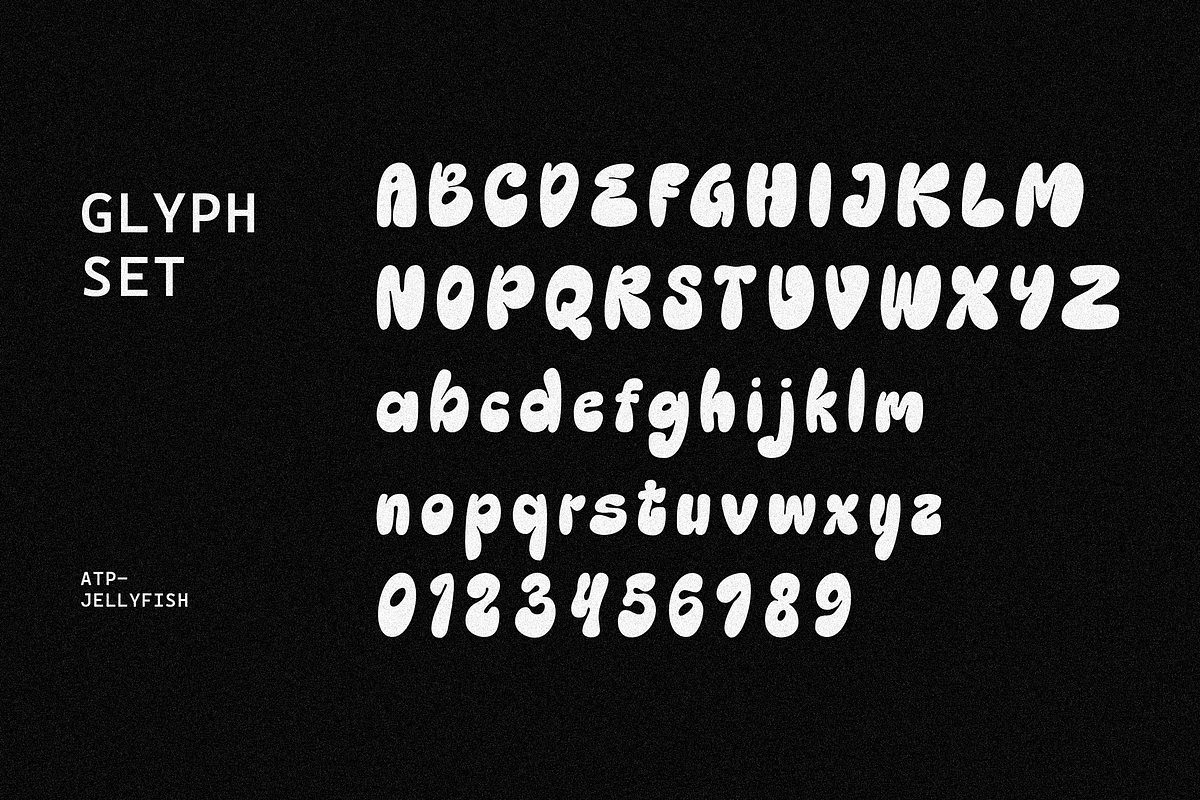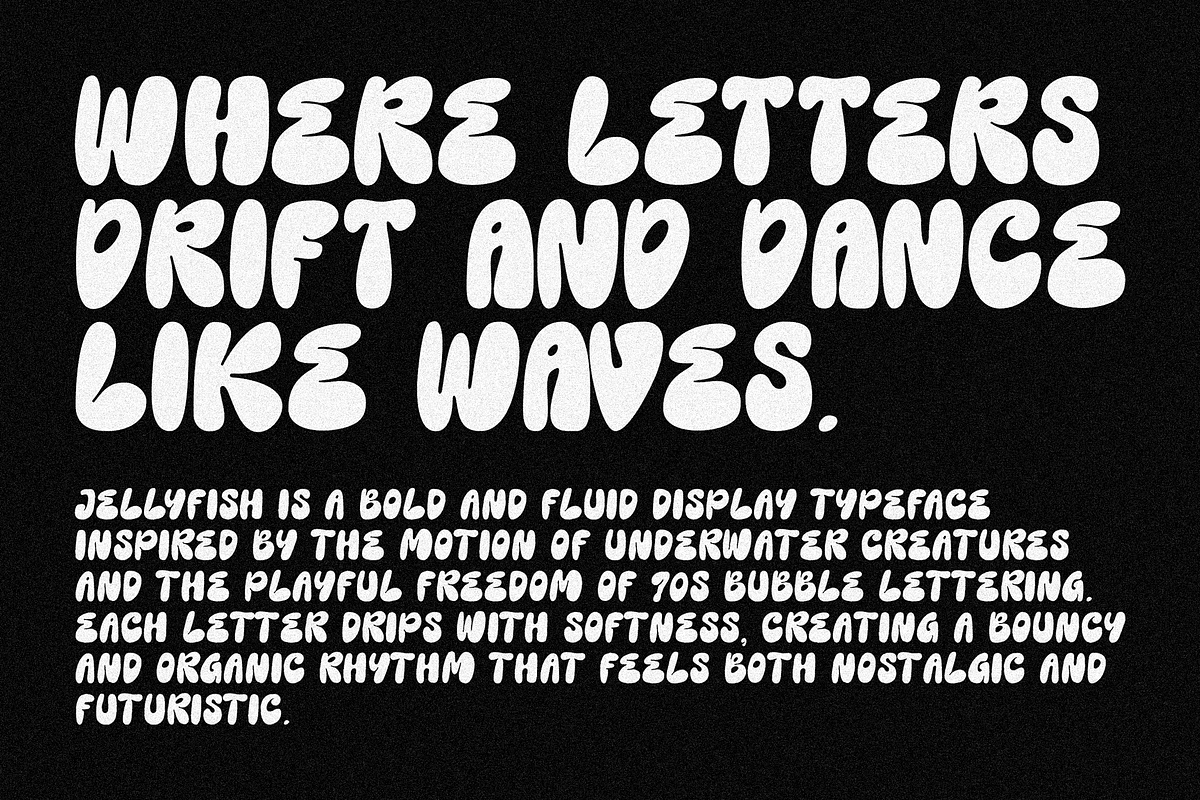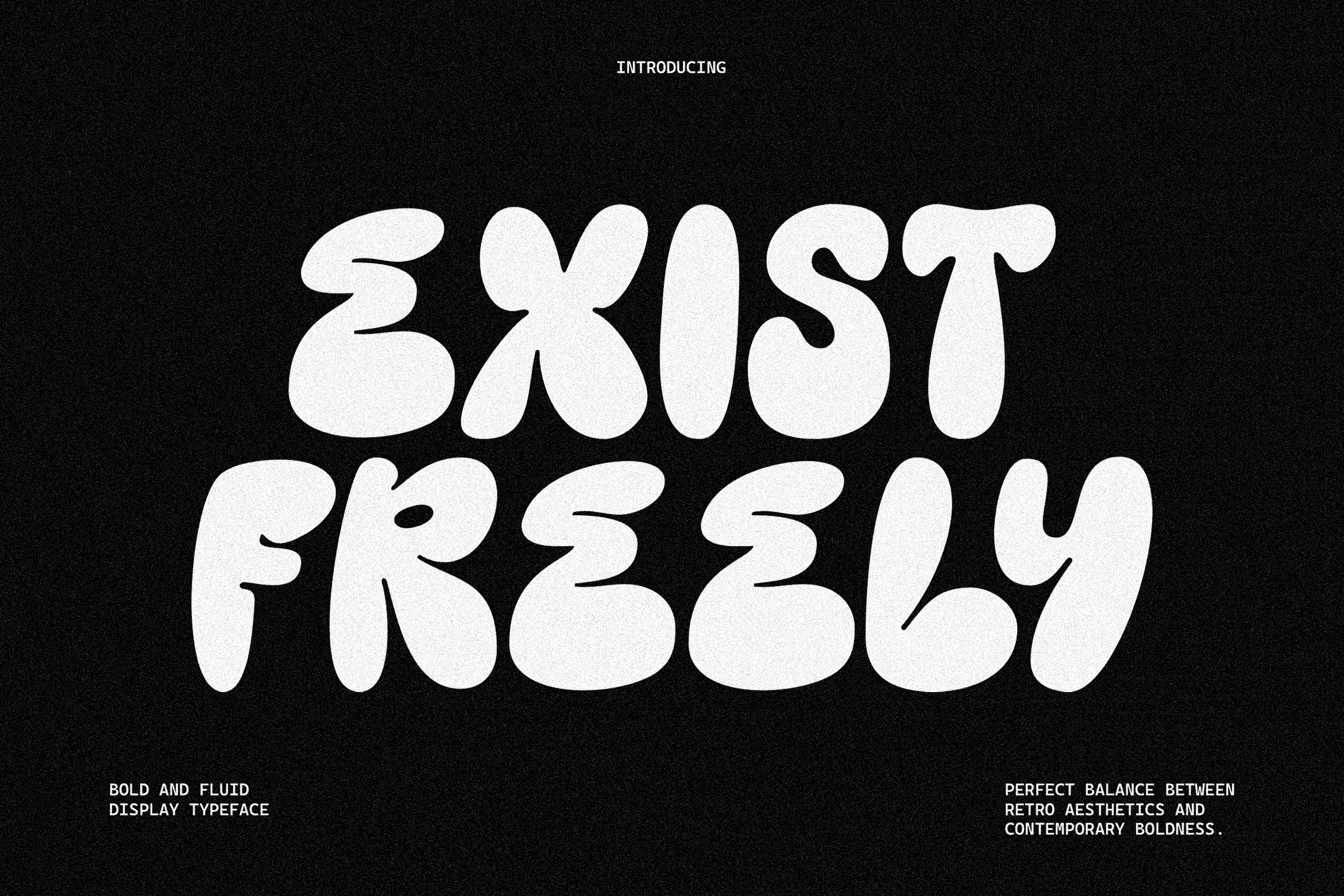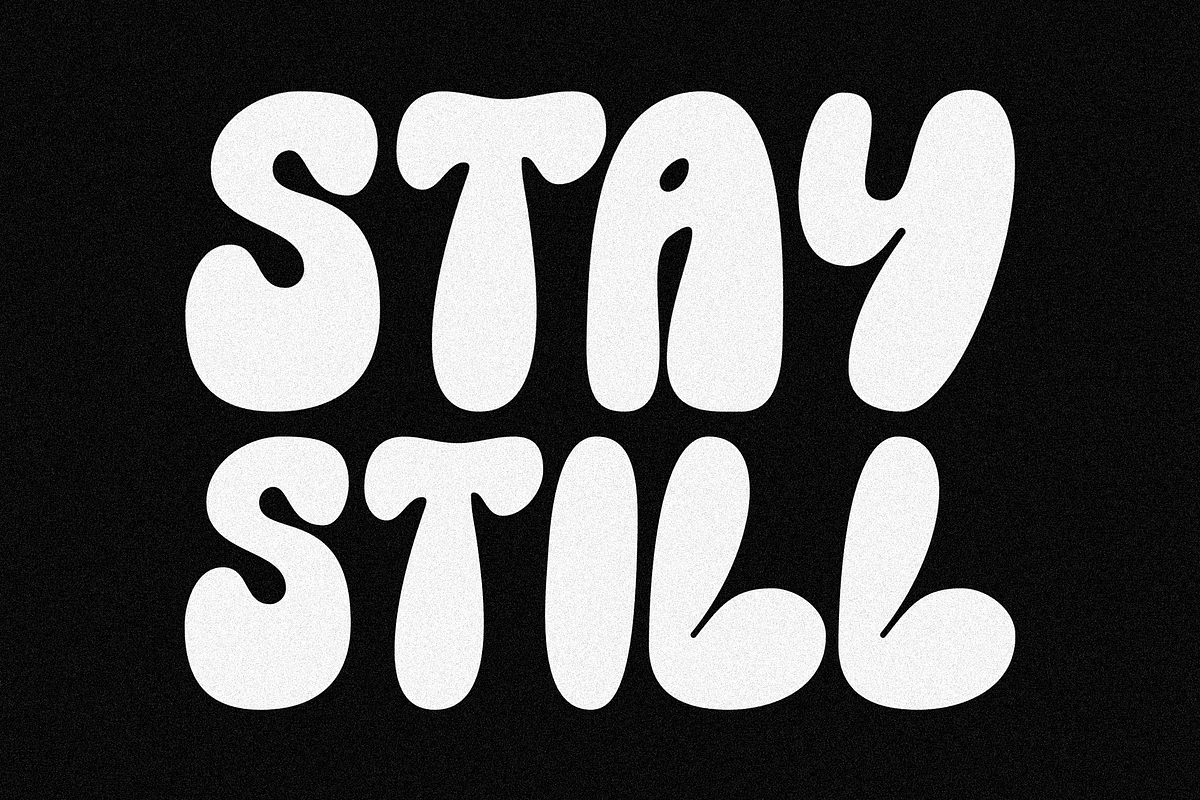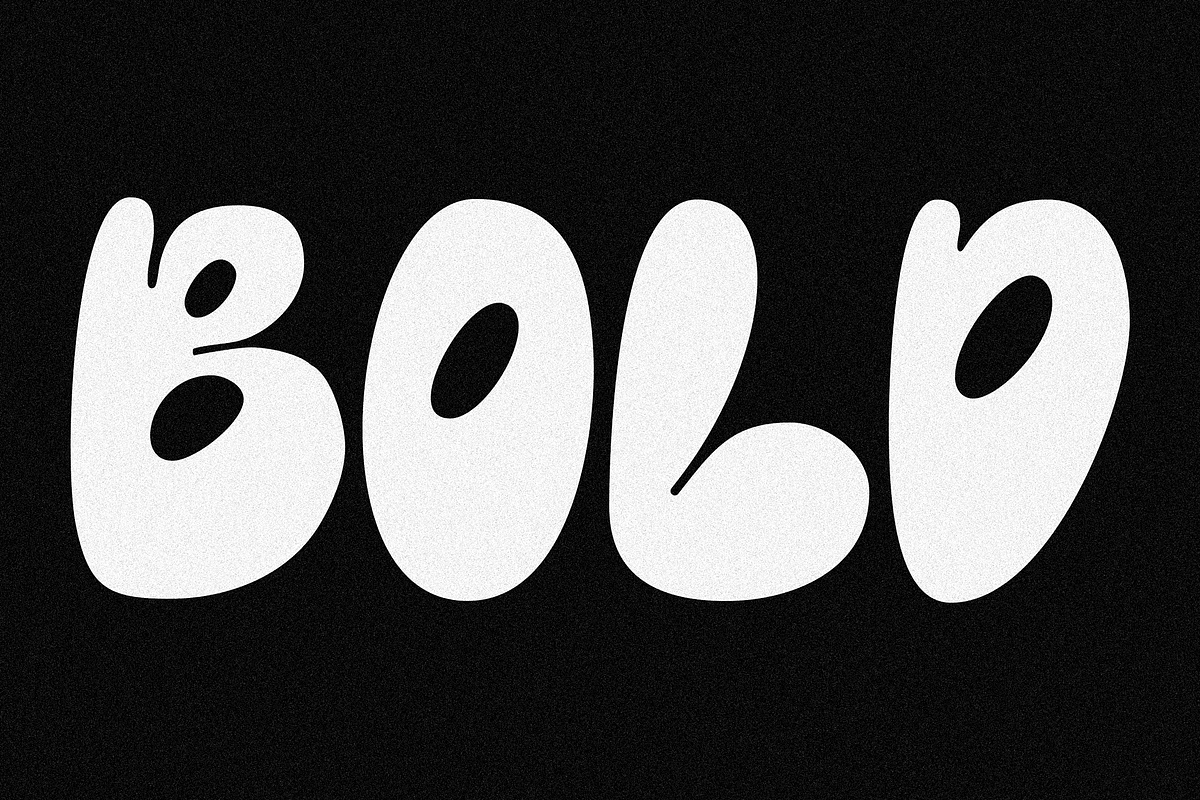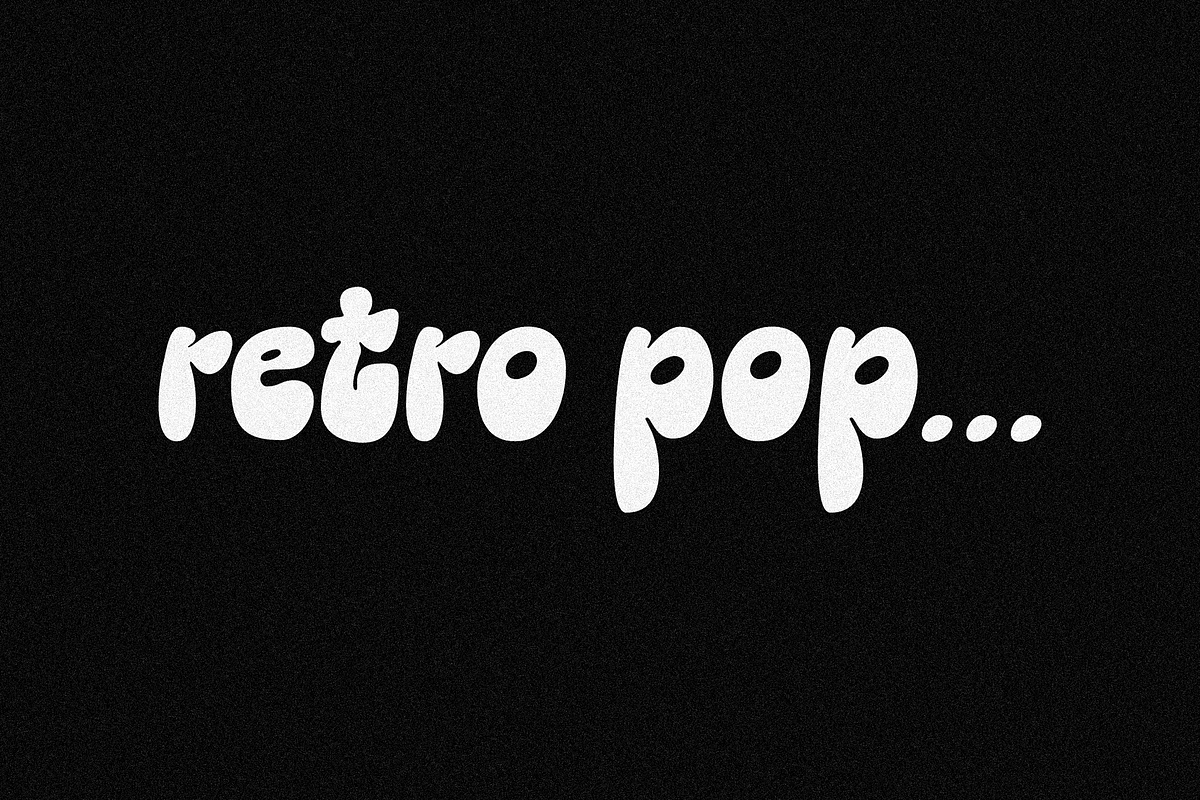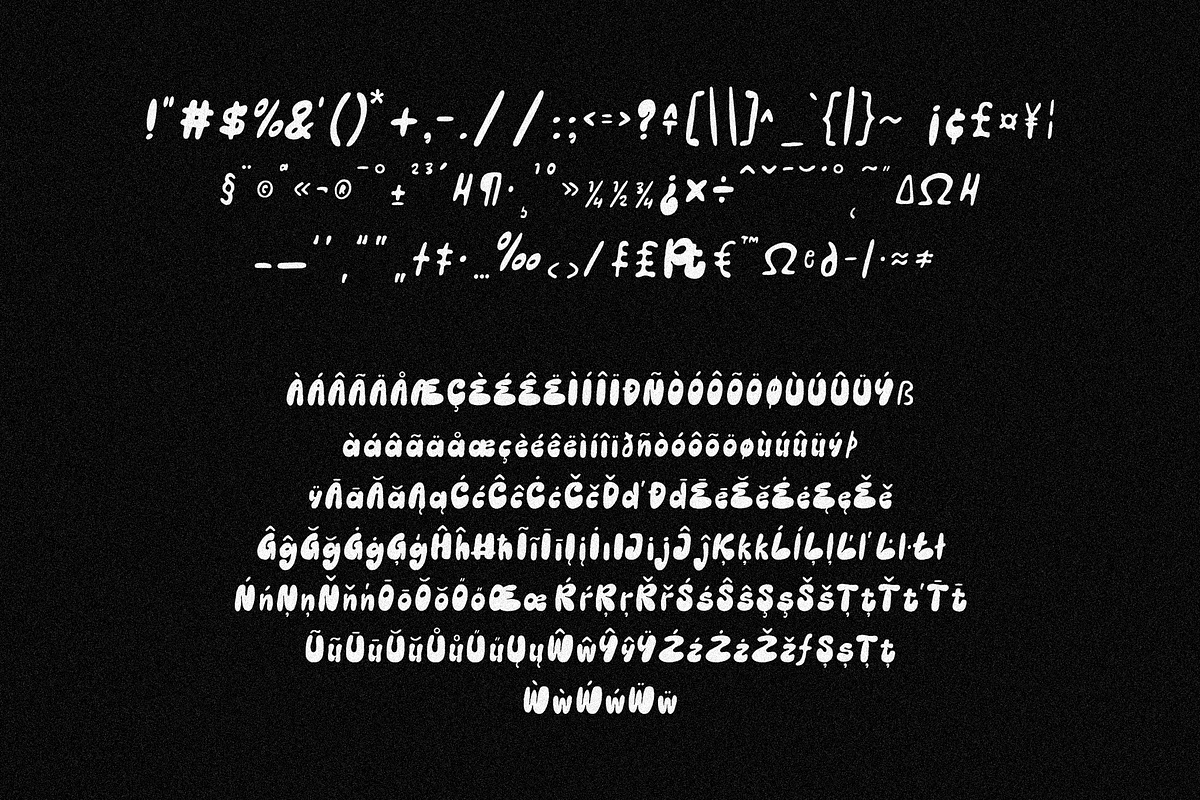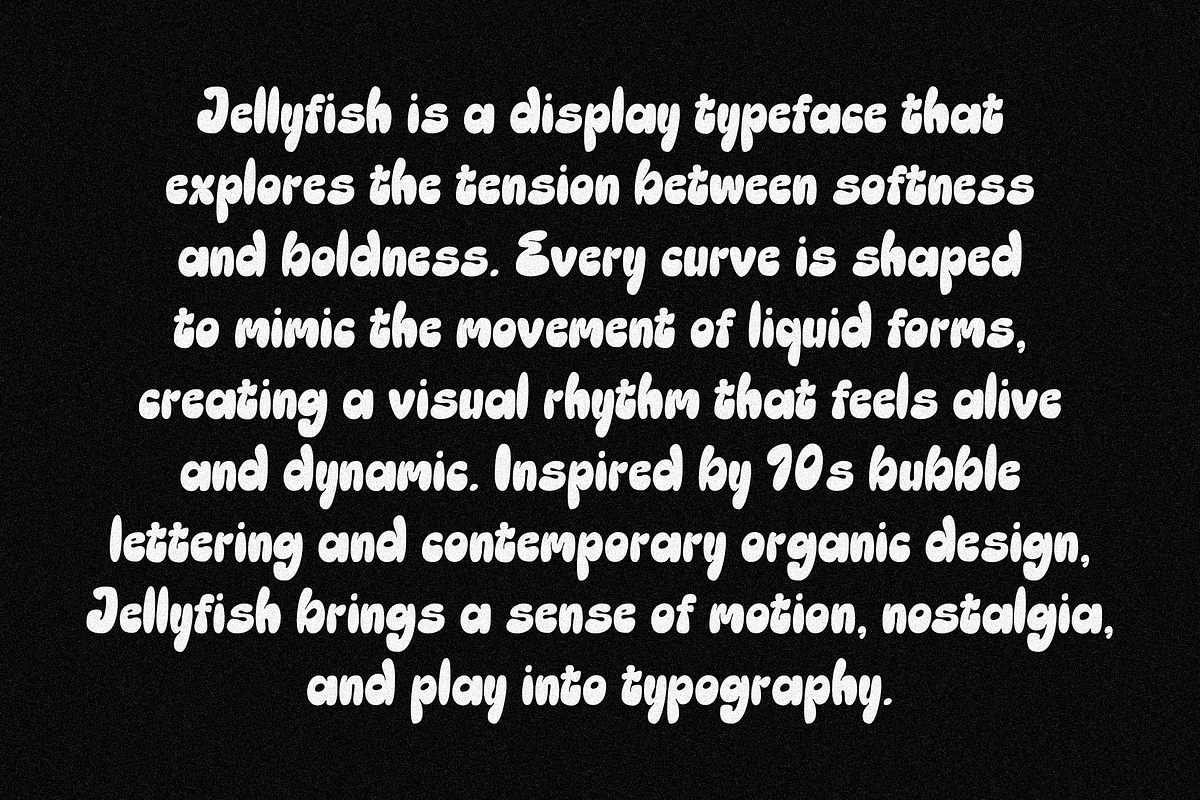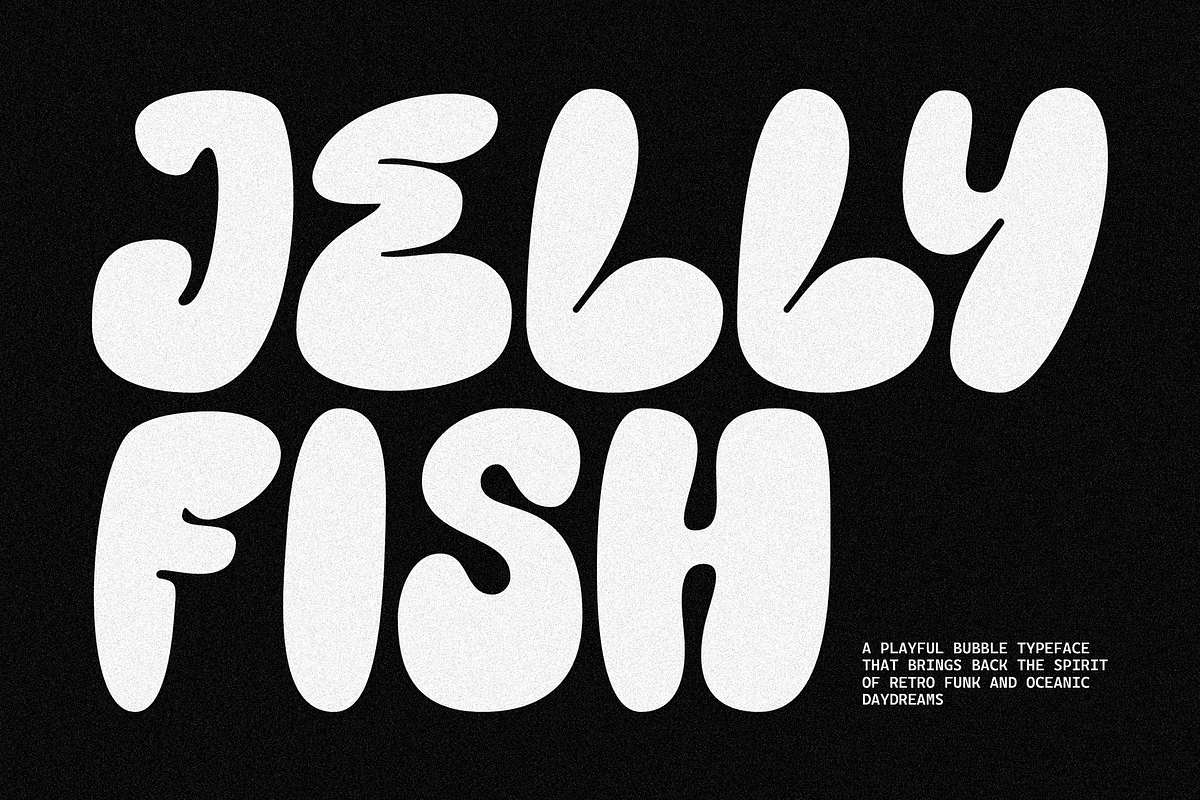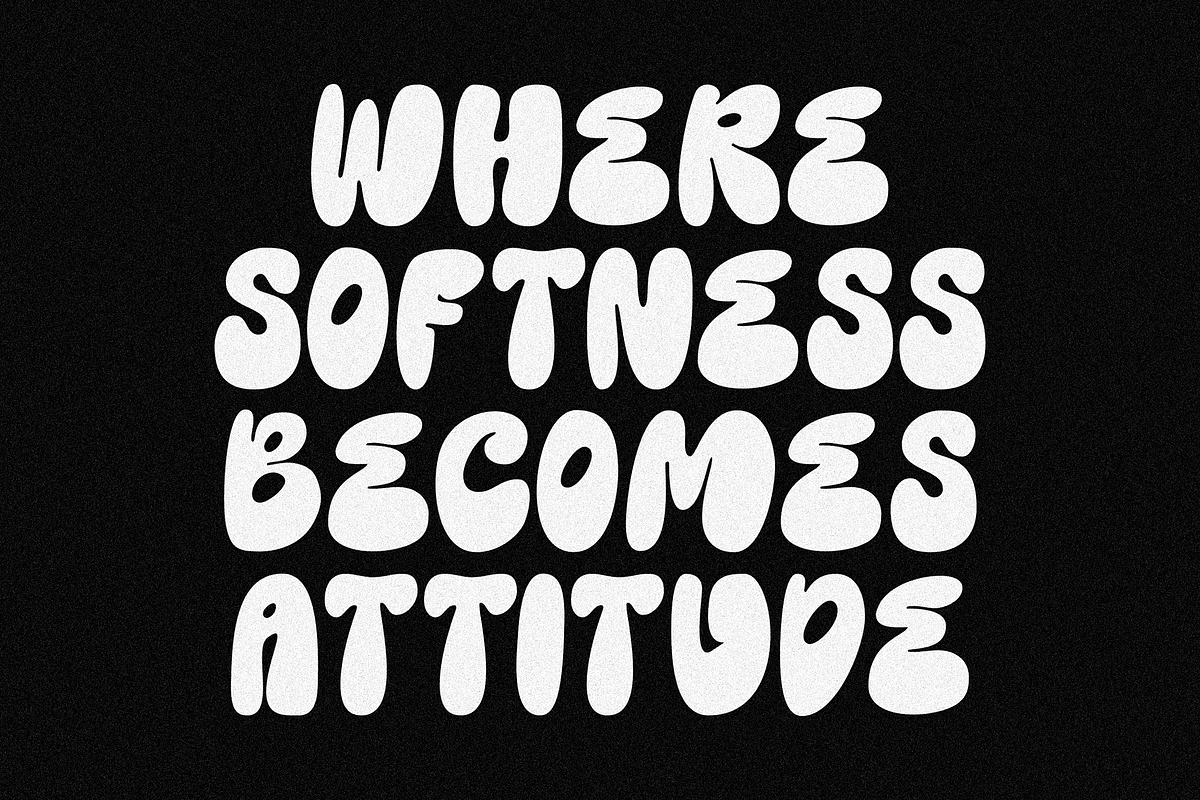
JellyFish - Groovy Bubble Font
ellyfish is a bold and fluid display typeface inspired by the motion of underwater creatures and the playful freedom of 70s bubble lettering. Each letter drips with softness, creating a bouncy and organic rhythm that feels both nostalgic and futuristic.
This typeface is made for designers who crave something fun yet intentional — a perfect balance between retro aesthetics and contemporary boldness. With its thick curves and hand-sculpted shapes, Jellyfish adds a splash of personality to any visual project, from candy packaging to surf posters, Y2K graphics, and dreamy album covers.